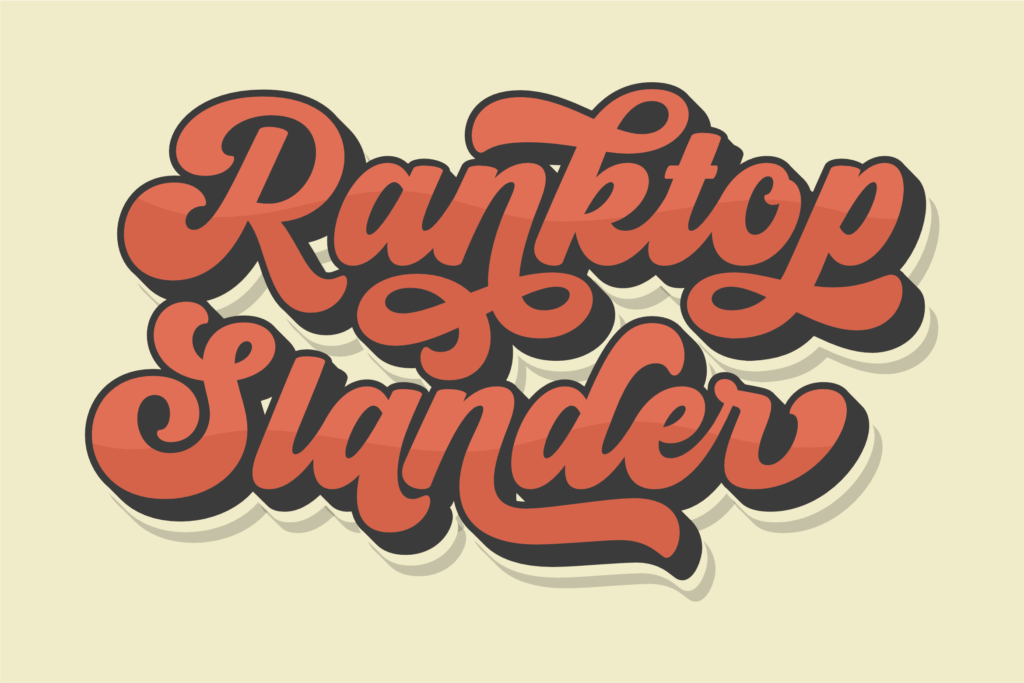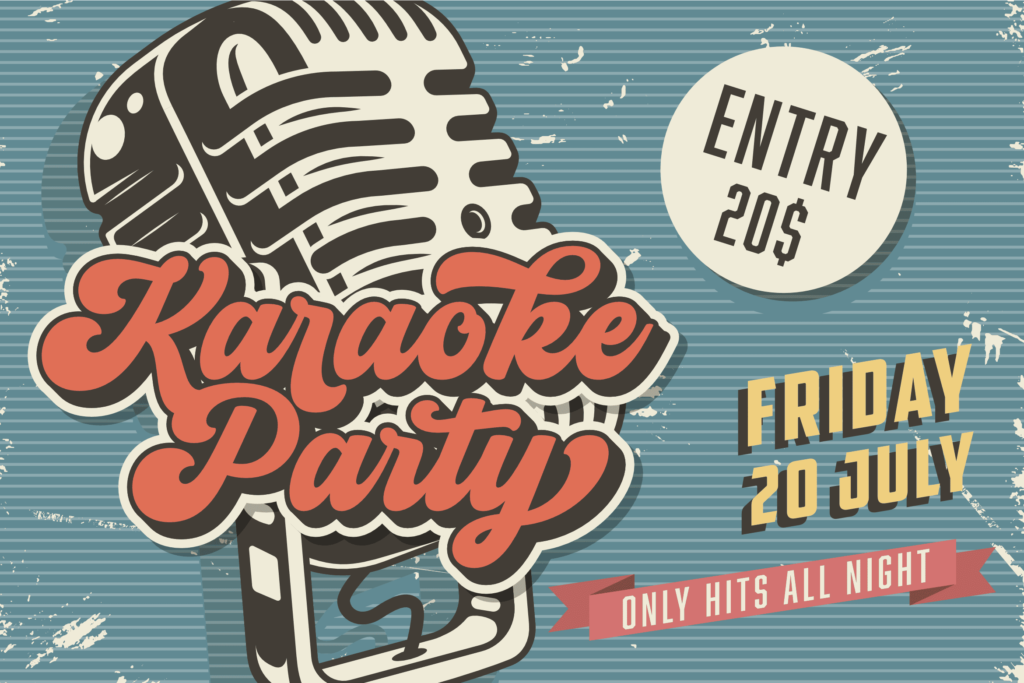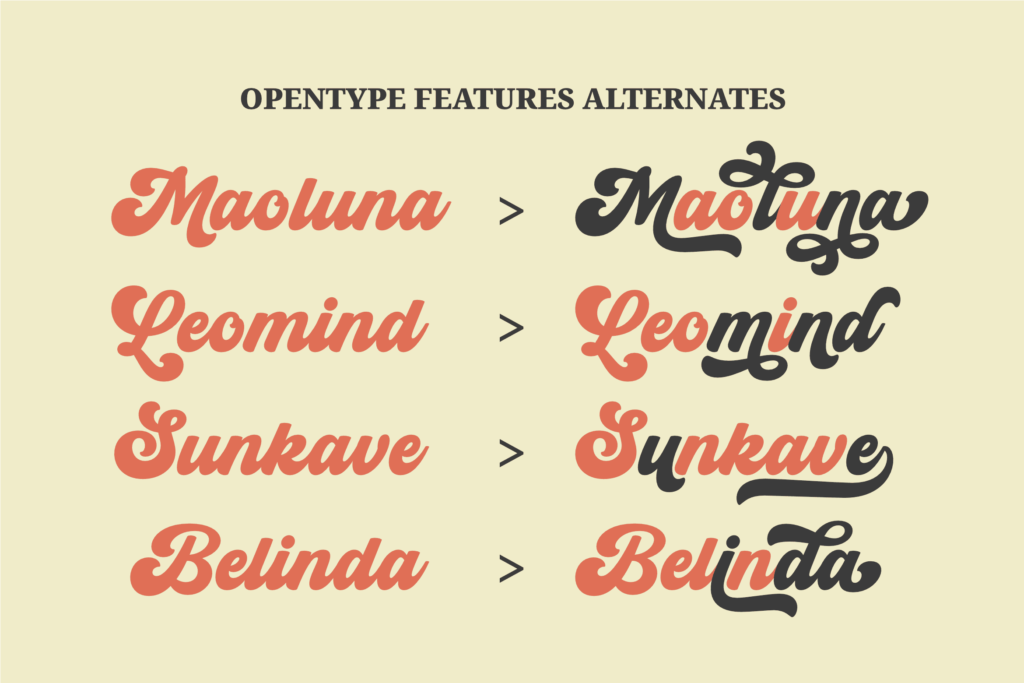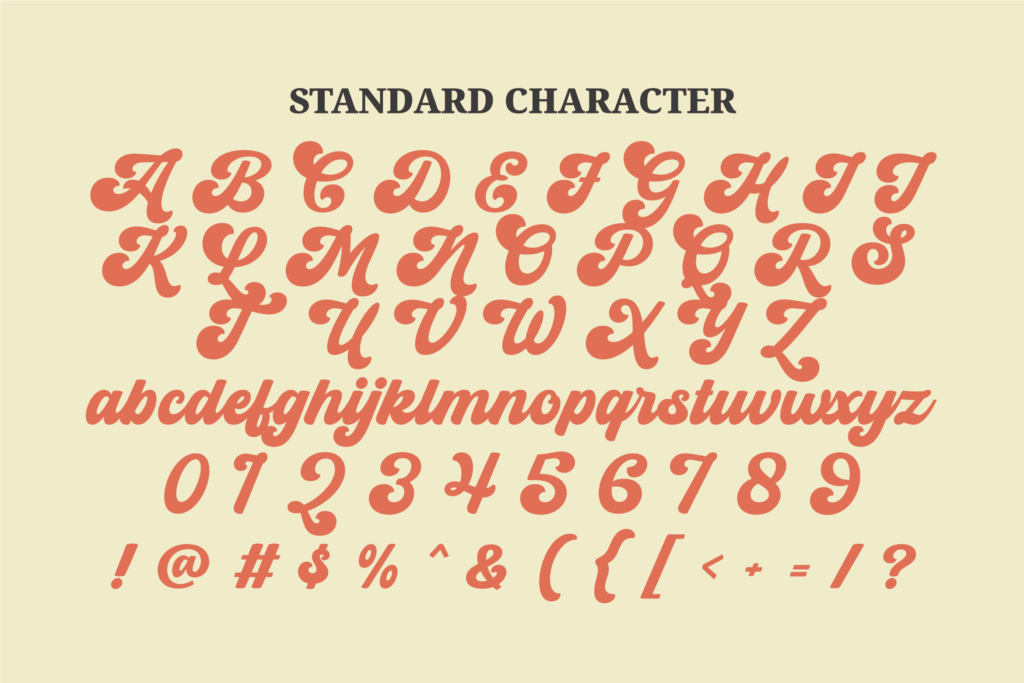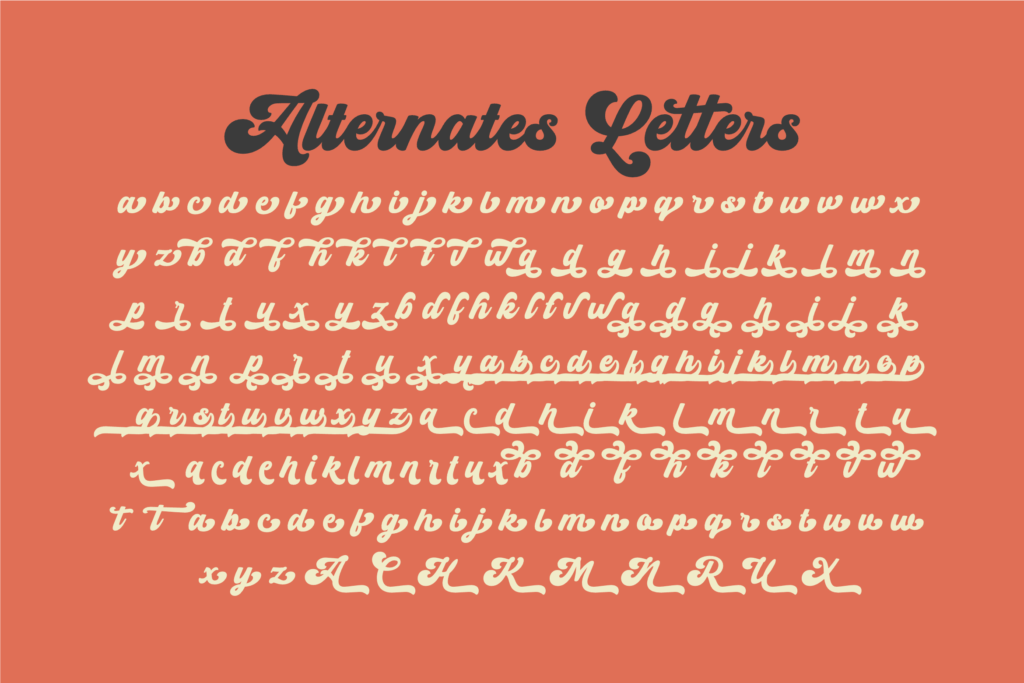
Headmain is a bold and dynamic script font designed with a strong retro influence. With its fluid curves and thick strokes, it brings a lively and energetic feel that instantly grabs attention. Ideal for eye-catching headlines, branding materials, posters, and vintage-themed designs, Headmain adds personality to any creative project. It also includes multiple alternates and OpenType features, giving you flexibility to create expressive and custom typography with ease.
The font’s layered style adds a unique sense of depth and visual impact, making it a standout display font choice for bold yet stylish design needs. Whether you’re working on product packaging, event graphics, or social media visuals, Headmain helps your message come through loud and clear. It balances strong presence with elegant flow, ensuring it feels dynamic without being overwhelming.
Inspired by the charm of classic lettering, Headmain is a true retro font that brings nostalgic flair to modern design. It also supports multiple languages, making it accessible and versatile for creators around the world. Whether you’re aiming for a vintage aesthetic or simply want to make a bold impression, Headmain is a great choice for high-impact visual storytelling.